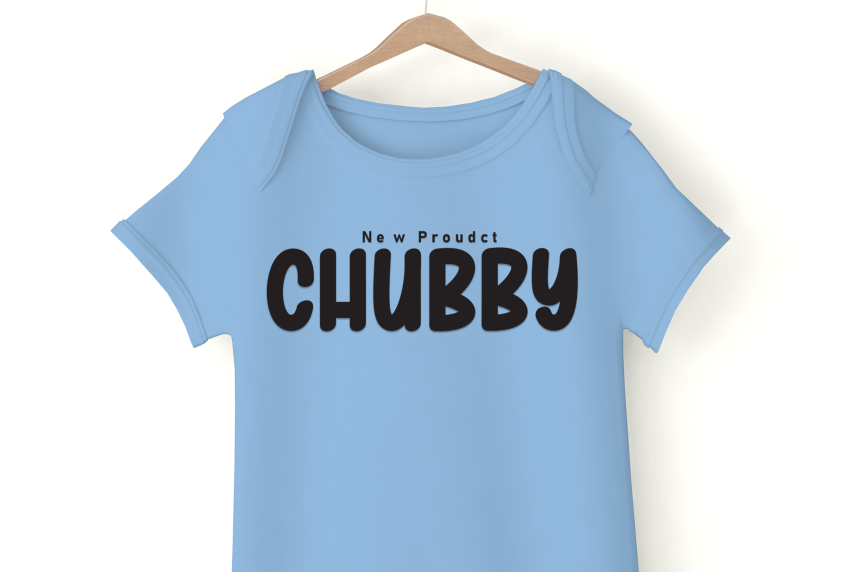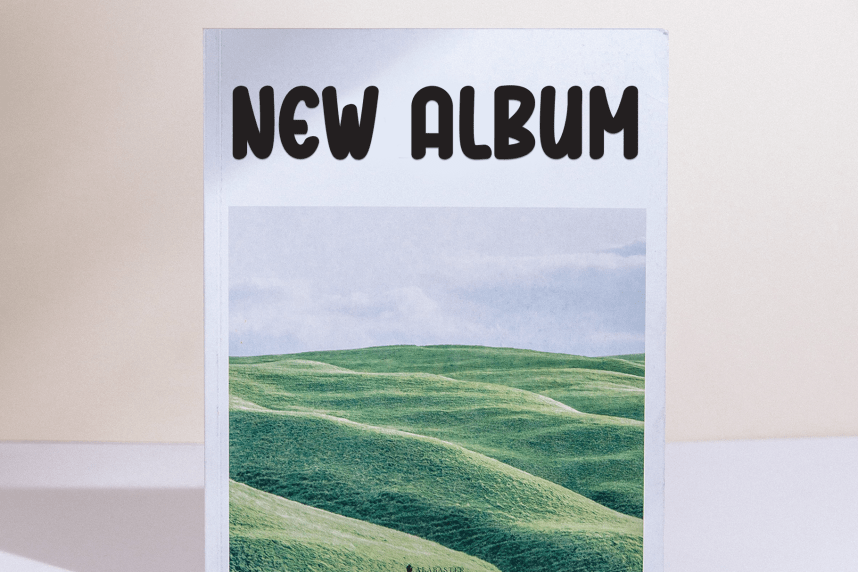
Sketchbook – Simple Handmade Font
Sketchbook – Simple Handmade Font is a sweet and friendly handwritten display font. Cute and fun, this font is ideal for writing wedding invitations, cards, or any other design that might need a playful touch!